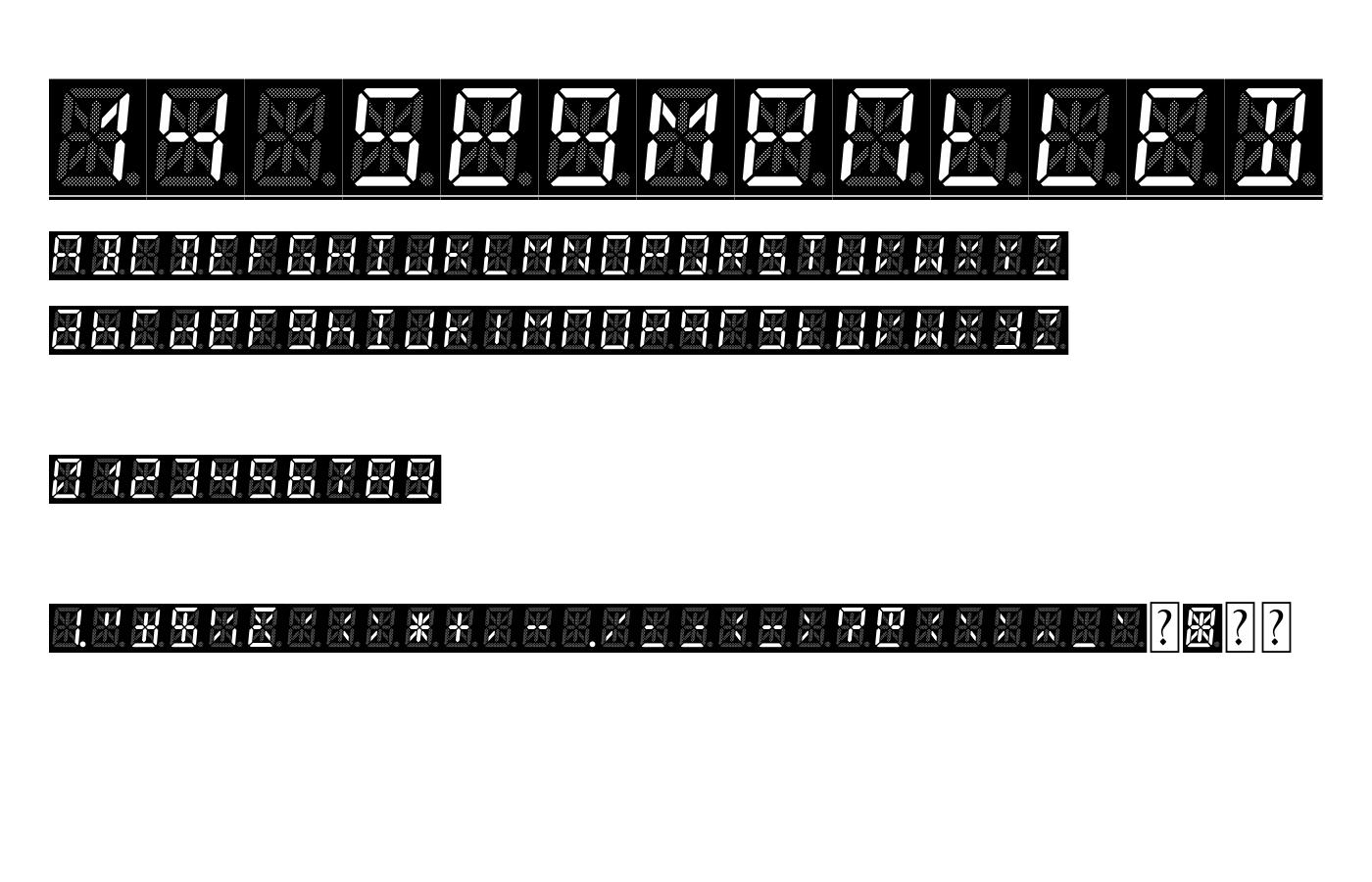
14 SegmentLED is a distinctive sans serif font that mimics the look of digital LED displays using segmented, geometric shapes to form each character. Its angular, monospaced design with high contrast between lit and unlit segments gives a technical, futuristic feel, perfect for digital, retro-tech, or industrial-themed projects. This font works best for headlines, signage, and electronic interfaces where a clear, digital aesthetic is desired.
14 SegmentLED Font
About 14 SegmentLED Font
| Font family | 14 SegmentLED Font |